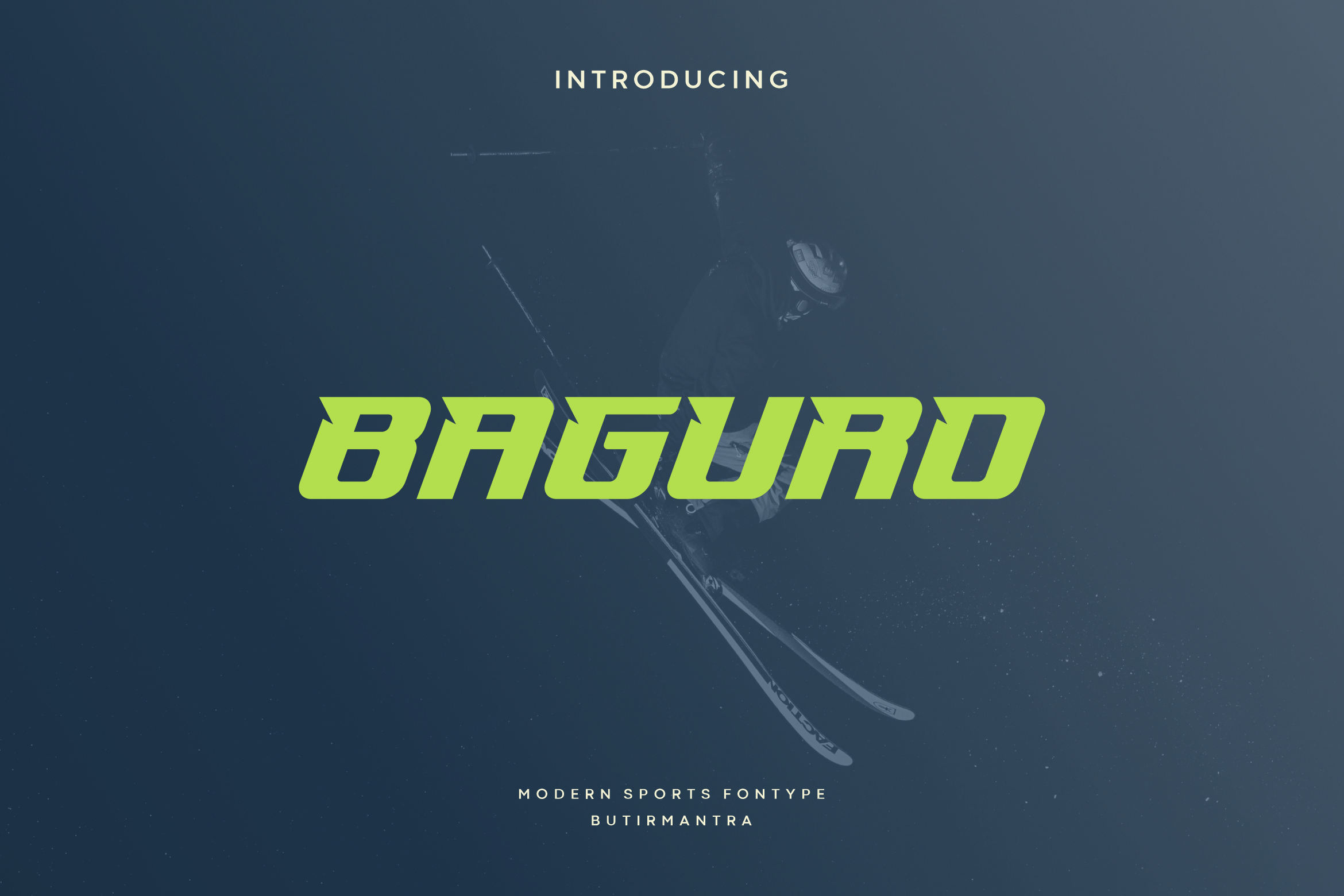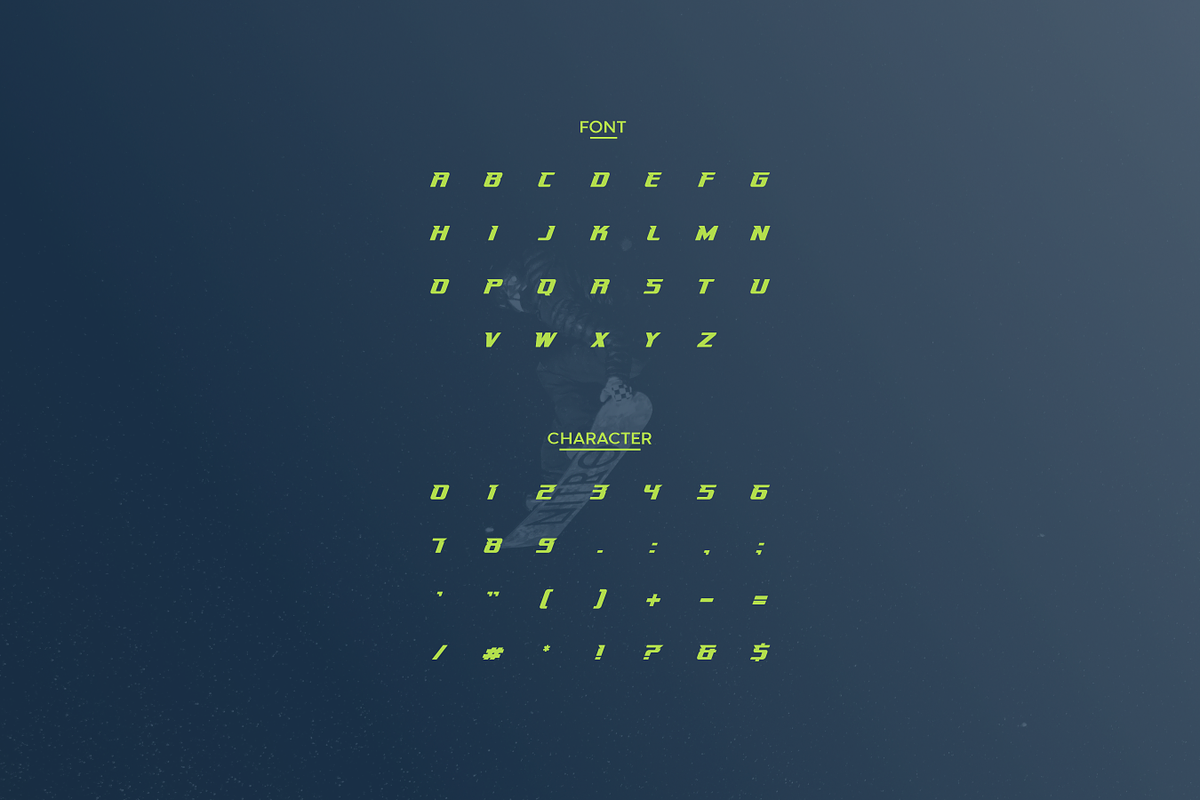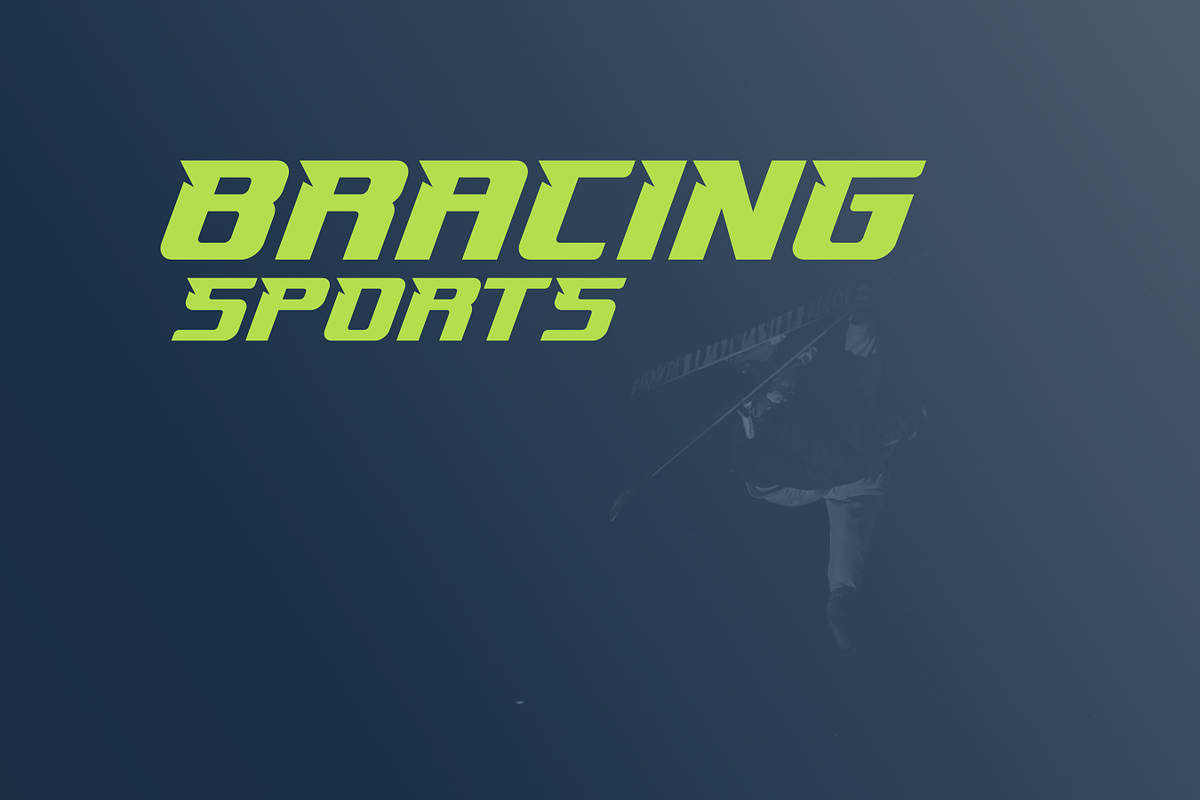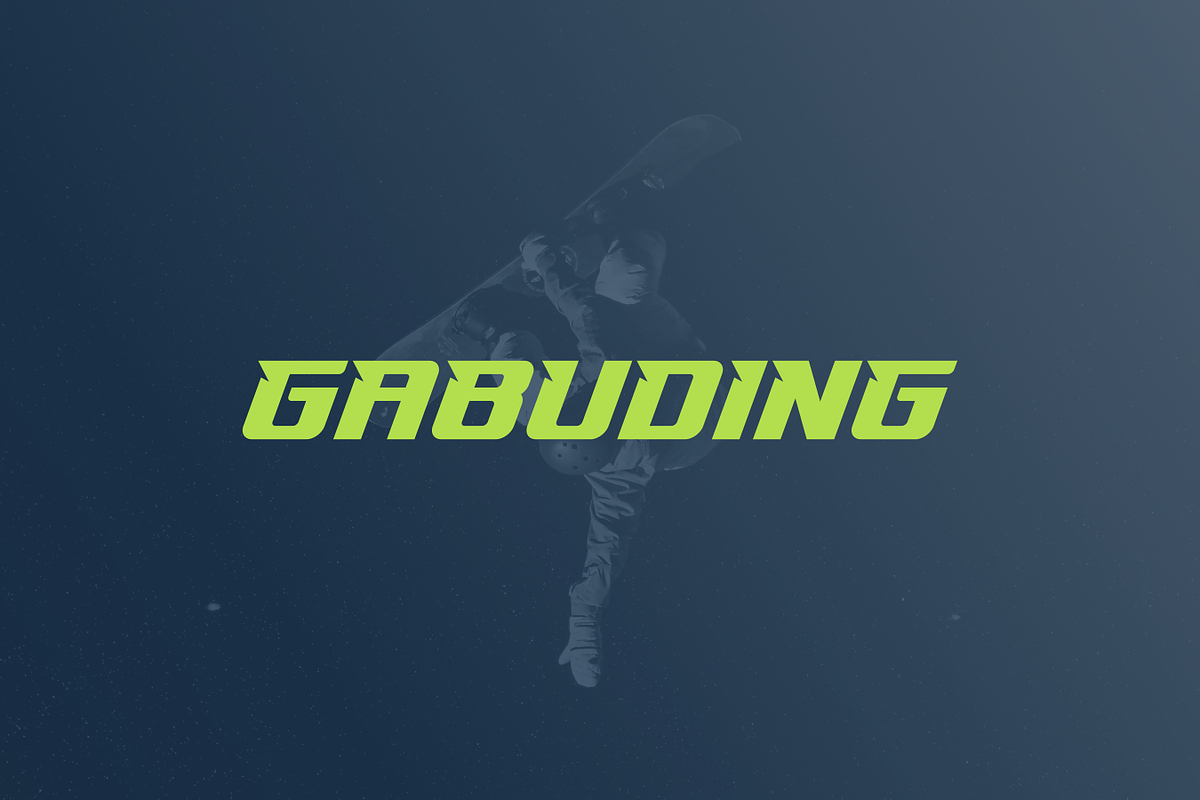
Baguro - Modern Sport Typeface
Baguro an awesome sports font with wide italic fonts, modern cutouts and dynamic tilt. Ideal for fast car racing sports titles, running matches, cycling, automotive game logos and other modern dynamic monograms or texts. Baguro is better than some other sports fonts because it has a unique cutout, this creates a power and speed effect. Designed as a fast and dynamic font, but with a slightly different font design, take a look and grab it right away.